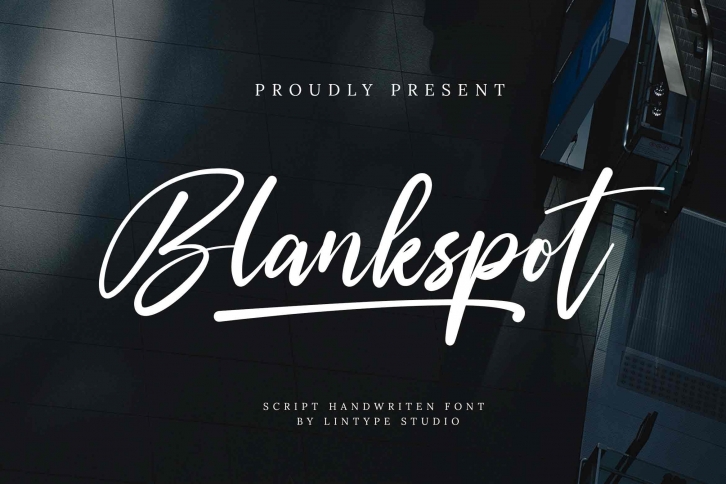
Blankspot is a beautiful and aesthetic handwritten script font. It will look beautiful on all your designs, wedding invitations, branding materials,social media post, business cards and quotes.